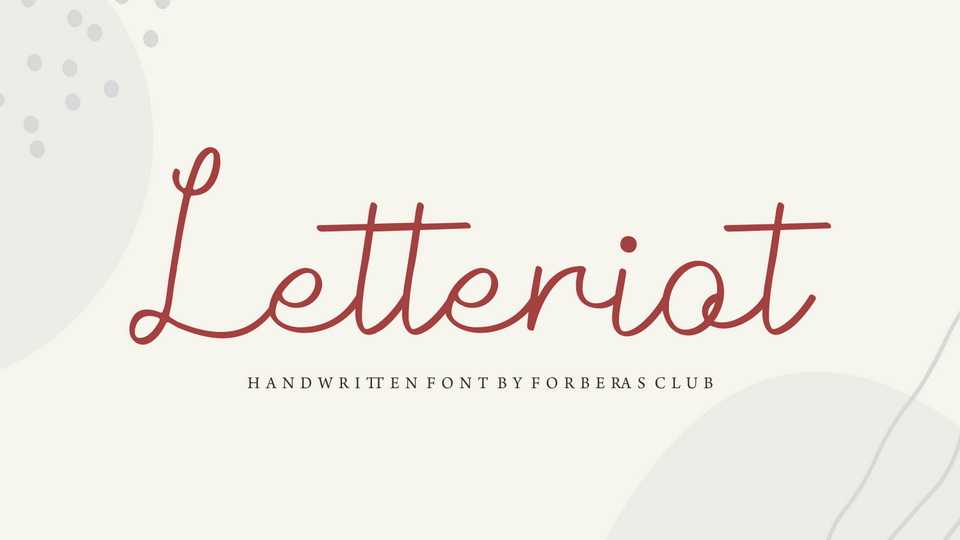
Download Letteriot font, a simple and elegant script font created to make your projects dance wherever you use it. Every letter has a unique and beautiful touch, which will make your design come alive.